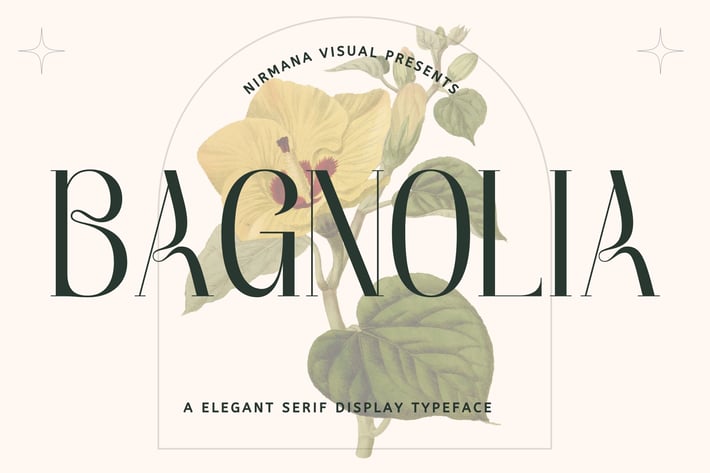
Bagnolia - Vintage Font
Bagnolia, contemporary of Serif font,
Bagnolia offers beautiful typographic harmony for a diversity of design projects, including logos & branding, social media posts, advertisements & product designs.